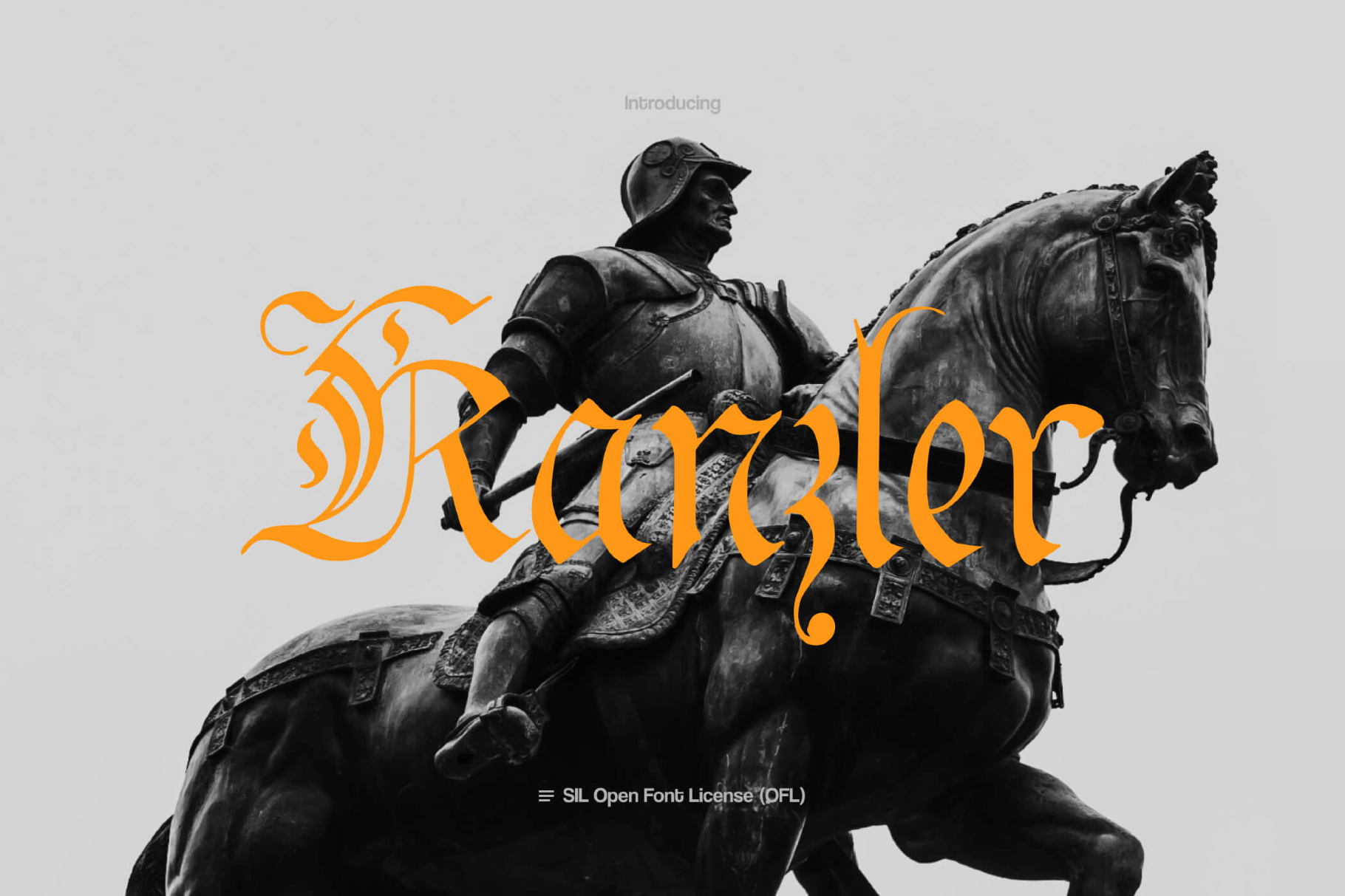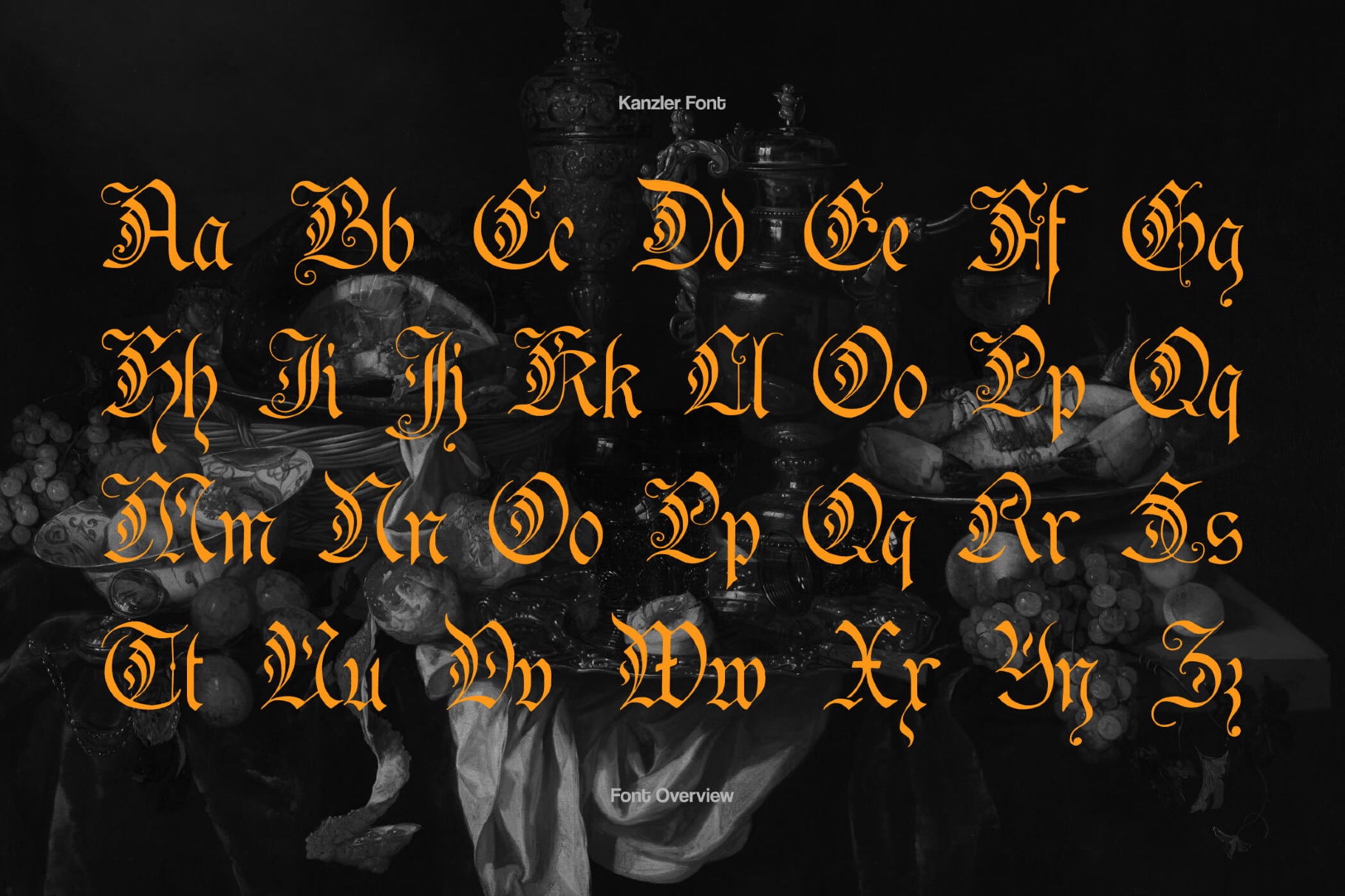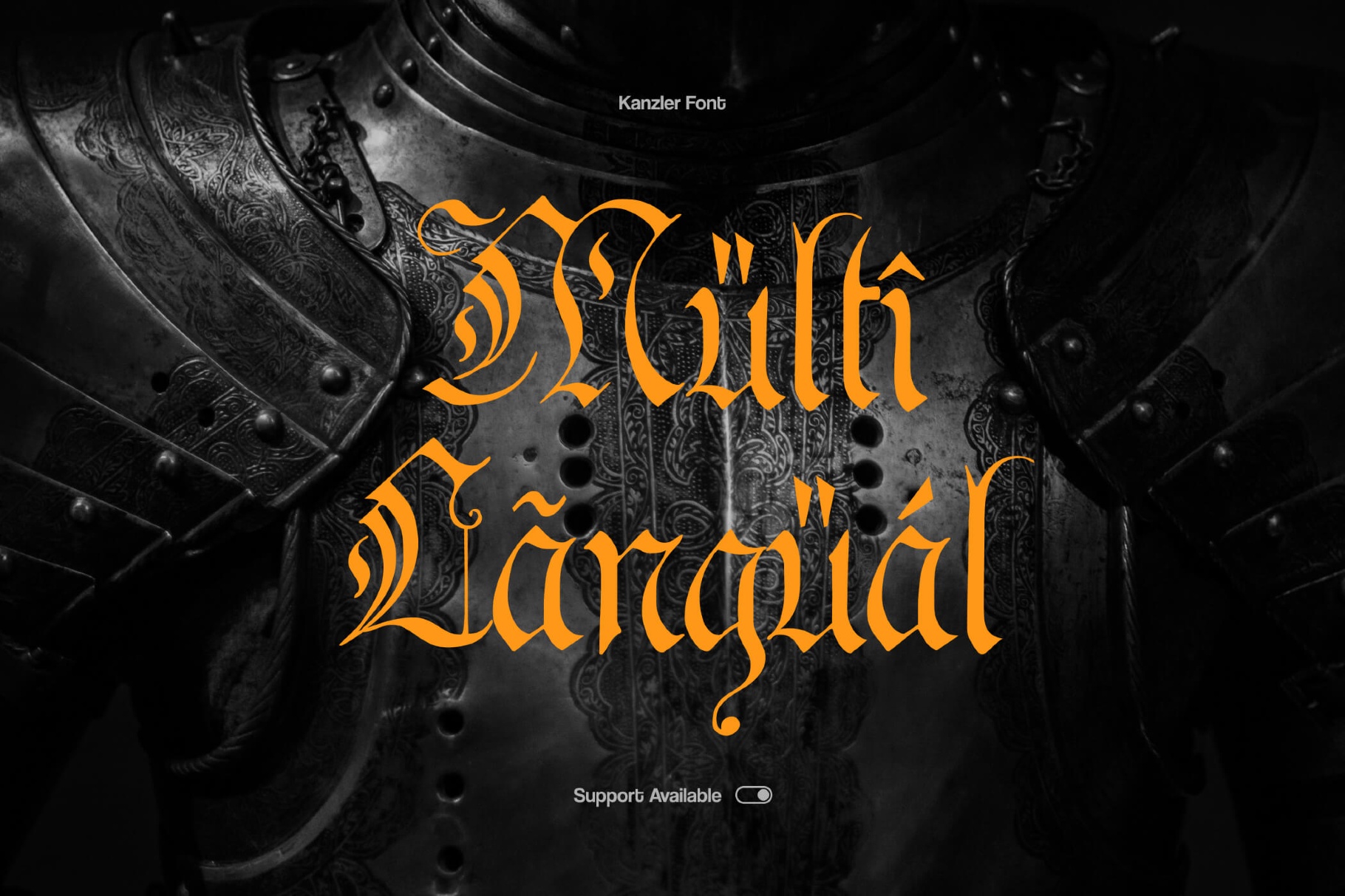
Kanzler Blackletter Font
Kanzler
Kanzler features tall, narrow letterforms with sharp angles. Its high strokes, fine interior counters, and elaborate capitals give titles a ceremonial presence. Ligature details sustain the calligraphic flow of a traditional pen work.
Uses:
- Logos and wordmarks in craft brewery or distillery branding.
- Metal, folk, and gothic music projects.
- Book covers for historical fiction, fantasy, or academic titles related to medieval studies.
- Certificates, diplomas, and formal documents.
- Tattoo studios and barbershops.
- Apparel graphics, patches, and merchandise prints.
- Packaging for chocolate, cigars, perfume, or artisan foods.
- Posters for festivals, fairs, and heritage events.